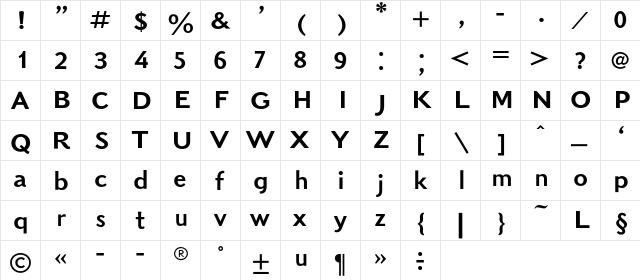
KudrashovSans Regular
Design Context for KudrashovSans Typeface
KudrashovSans is a composed and adaptable typeface that performs quietly and consistently across a wide range of design contexts.